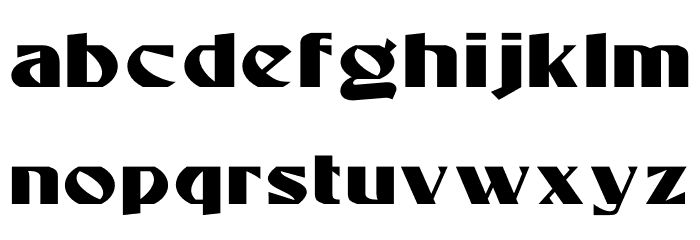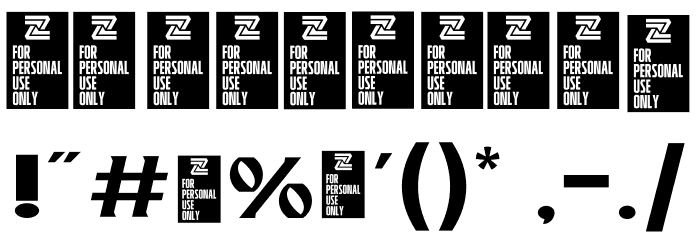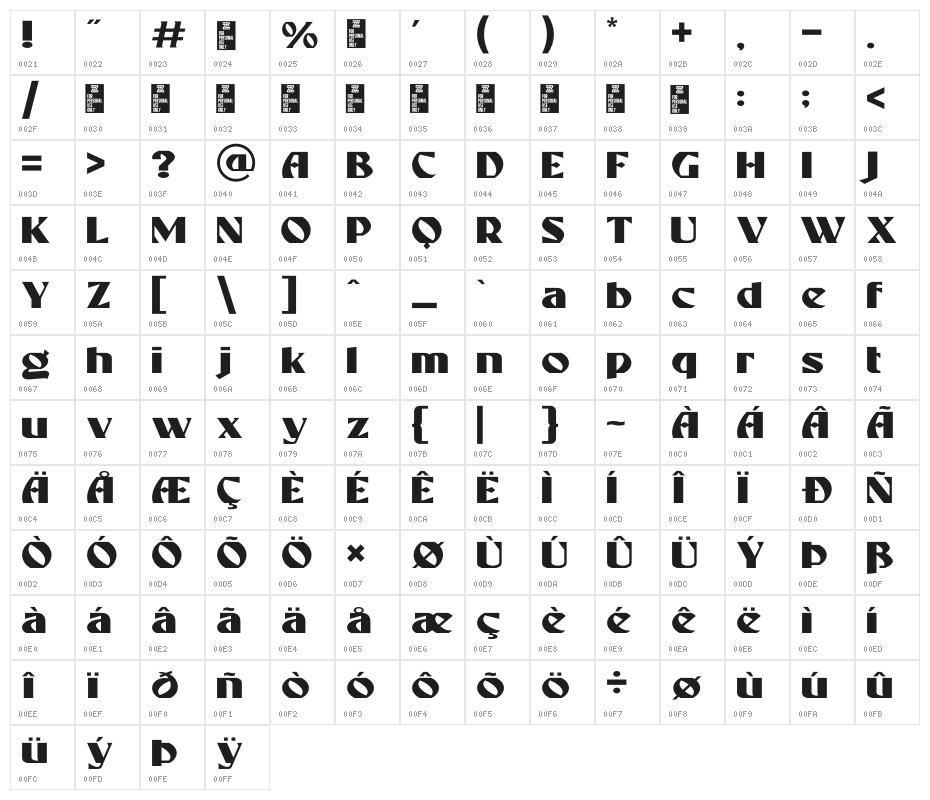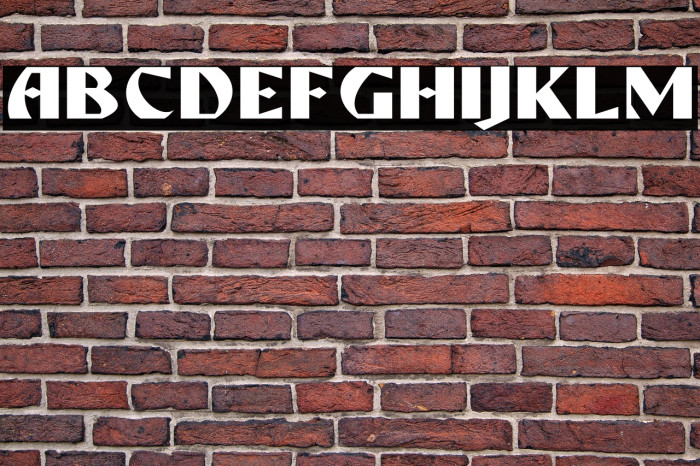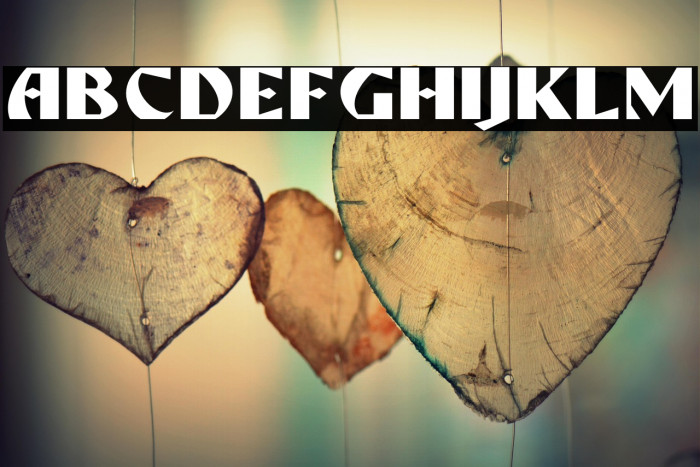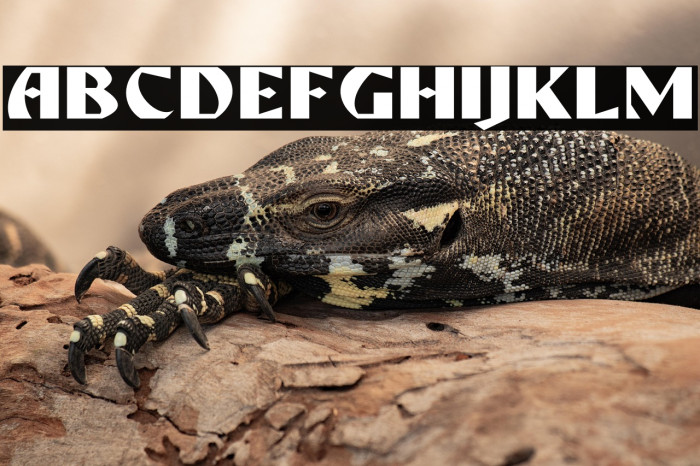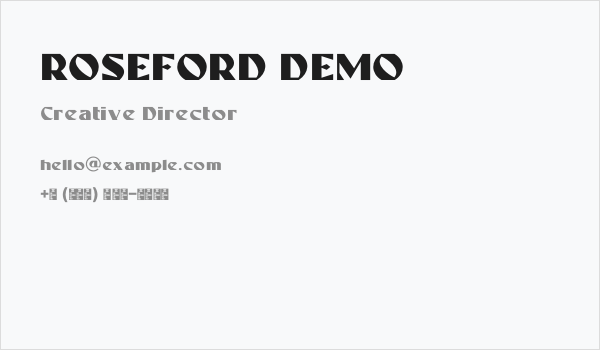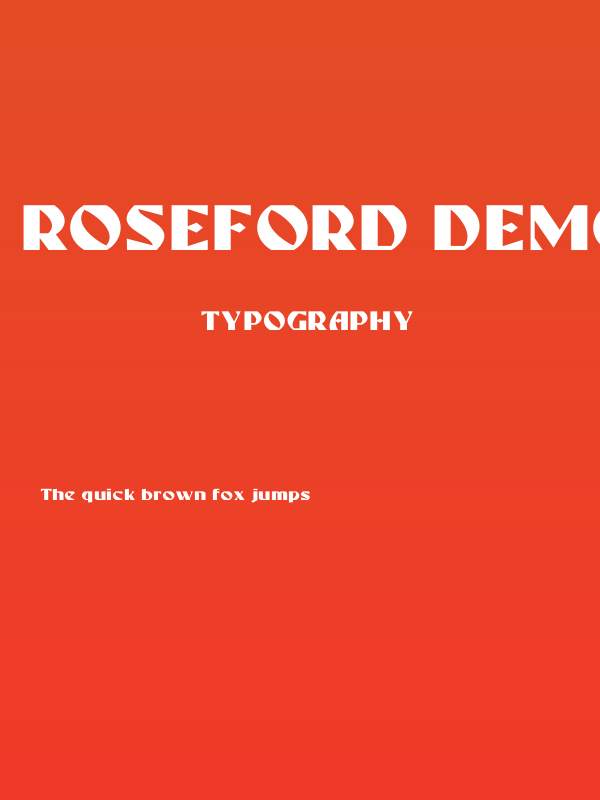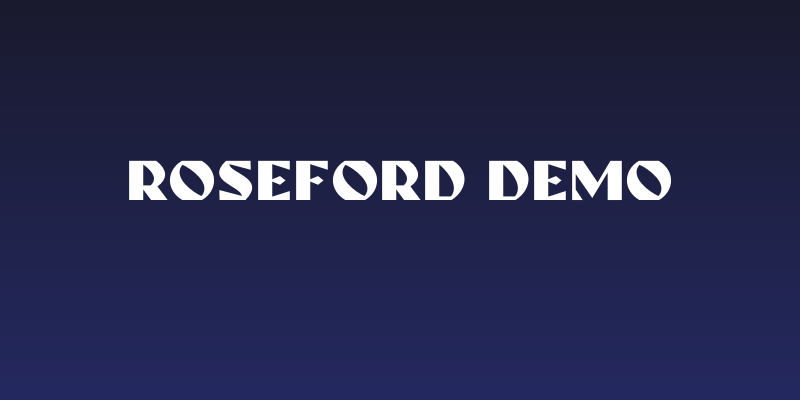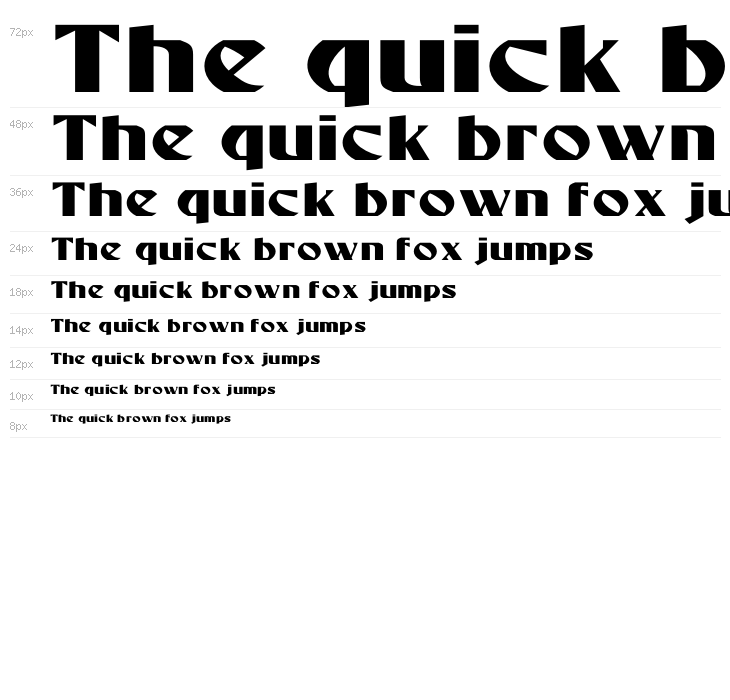
ROSEFORD DEMO Font
This font features a bold and striking design with sharp, angular edges and a geometric aesthetic. The uppercase letters are particularly prominent, with a strong presence that commands attention. The lowercase letters maintain a consistent style, offering a cohesive look across the alphabet. The numerals and special characters are designed to match the boldness of the letters, ensuring uniformity throughout. This font's unique style makes it suitable for impactful designs where a modern and assertive appearance is desired.
A bold, geometric font with sharp, angular edges and a modern aesthetic.
- Font: ROSEFORD DEMO
- Proposed Projects: Ideal for branding, headlines, posters, and any project requiring a strong visual impact.